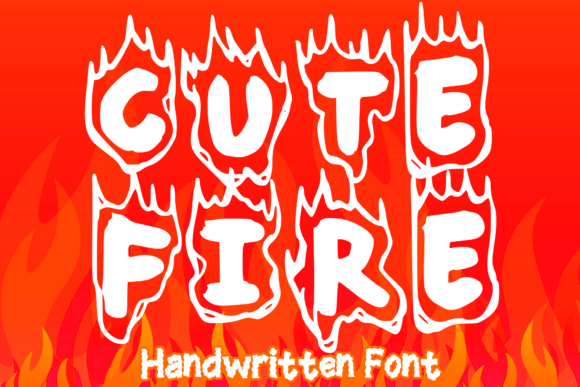
Cute Fire Font: Add a Blazing Touch to Your Designs
Are you looking for a font that can add a spark to your designs? Look no further than the Cute Fire Font! This adorable display font is perfect for anyone who wants to add a fun and decorative touch to their projects. With its unique fire-inspired twist, Cute Fire Font is sure to make your designs stand out from the crowd.
What Makes Cute Fire Font So Special?
Cute Fire Font is a one-of-a-kind display font that is designed to add a playful and cheering vibe to your designs. Its unique fire decorative twist makes it perfect for a wide range of projects, from t-shirts and clothing to kid’s book designs, party needs, greeting cards, stickers, posters, and banners.
- Unique Fire-Inspired Design: The Cute Fire Font features a distinctive fire-inspired design that is sure to grab attention.
- Perfect for Decorative Needs: Whether you need to create eye-catching posters, fun greeting cards, or playful stickers, Cute Fire Font is the perfect choice.
- Kid-Friendly: The font’s playful and colorful design makes it perfect for kid’s book designs, party needs, and other projects aimed at children.
- Versatile: Cute Fire Font can be used for a wide range of projects, from clothing and accessories to home decor and more.
10 Creative Ways to Use Cute Fire Font
The possibilities are endless when it comes to using Cute Fire Font. Here are 10 creative ways to get you started:
- T-Shirts and Clothing: Add a fun and playful touch to your apparel designs with Cute Fire Font.
- Kid’s Book Designs: Create engaging and interactive children’s books with this adorable font.
- Kid’s Party Needs: Use Cute Fire Font to create fun and colorful party invitations, banners, and decorations.
- Greeting Cards: Add a personal touch to your greeting cards with this unique and playful font.
- Stickers: Create eye-catching stickers with Cute Fire Font that are perfect for kids and adults alike.
- Posters: Design bold and attention-grabbing posters with this decorative font.
- Banners: Create festive and fun banners with Cute Fire Font that are perfect for parties and events.
- Social Media Graphics: Use Cute Fire Font to create engaging and shareable social media graphics.
- Signs: Add a playful touch to your signs with this unique and decorative font.
- Packaging: Use Cute Fire Font to create eye-catching packaging that stands out on store shelves.
Tips for Designing with Cute Fire Font
Here are some design tips to help you get the most out of Cute Fire Font:
- Experiment with Colors: Cute Fire Font looks great in a variety of colors, so don’t be afraid to experiment and find the perfect hue for your design.
- Pair with Other Fonts: Try pairing Cute Fire Font with other fonts to create a unique and eye-catching design.
- Use it Sparingly: While Cute Fire Font is perfect for headlines and titles, it can be overwhelming if used too much. Use it sparingly to create a balanced design.
- Add Texture and Patterns: Add texture and patterns to your design to give it an extra layer of depth and interest.
Cute Fire Font is a unique and playful display font that is perfect for adding a fun and decorative touch to your designs. With its fire-inspired twist and versatile design, it’s perfect for a wide range of projects, from t-shirts and clothing to kid’s book designs and party needs. So why not give it a try and add a blazing touch to your designs?